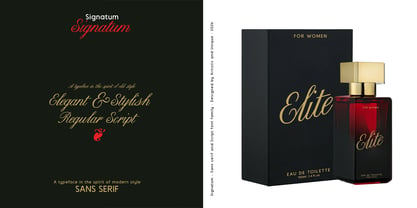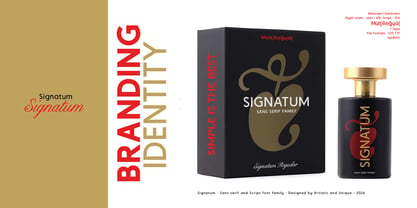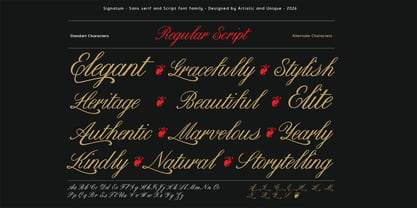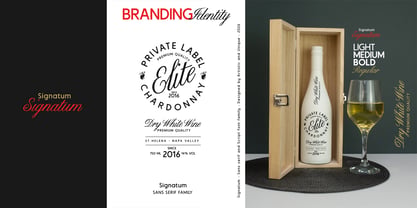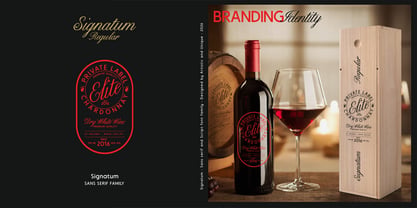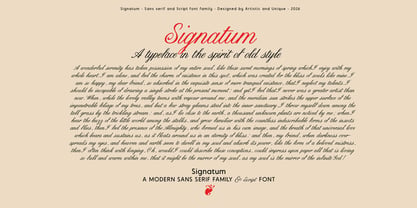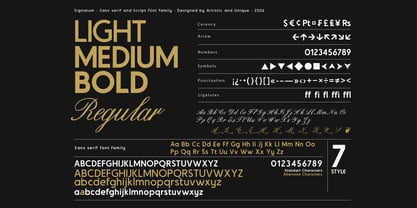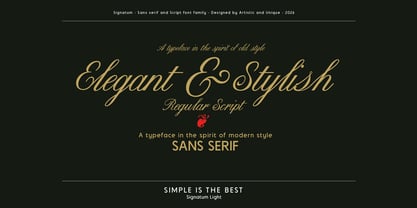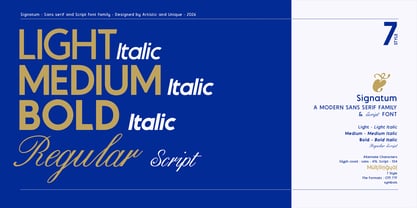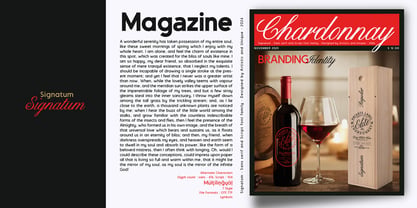
Signatum
Die Schriftfamilie Signatum wurde von Osman Taner Kucukgenc entworfen und von Artisticandunique veröffentlicht. Signatum enthält 7 Stile und Familienpaketoptionen. Mehr über diese Familie
Signatum – Sans Serif and Script Font Family - 7 Styles - Multilingual Support
The Signatum sans serif and script font family is a font you can use when you need to add a touch of luxury to your designs. It's perfect for logos, branding, and more. You can shape your creative projects with this duo, which combines modern and classic design concepts.
If you aim to use the old and the new together, the Signatum font family is ideal for your needs.
Whether you're working on editorial layouts, books, magazines, newspapers, packaging, movie titles and content, brand identity, websites, or logo design, Signatum offers a harmonious aesthetic blend for modern and classic needs.
Features:
Multilingual support,
7 different styles,
Style alternatives and additional symbols,
Rich glyph options (sans serif 476 - script 104),
Perfect for branding and publication design,
Suitable for web and logo design,
Designer: Osman Taner Kucukgenc
Foundry: Artisticandunique